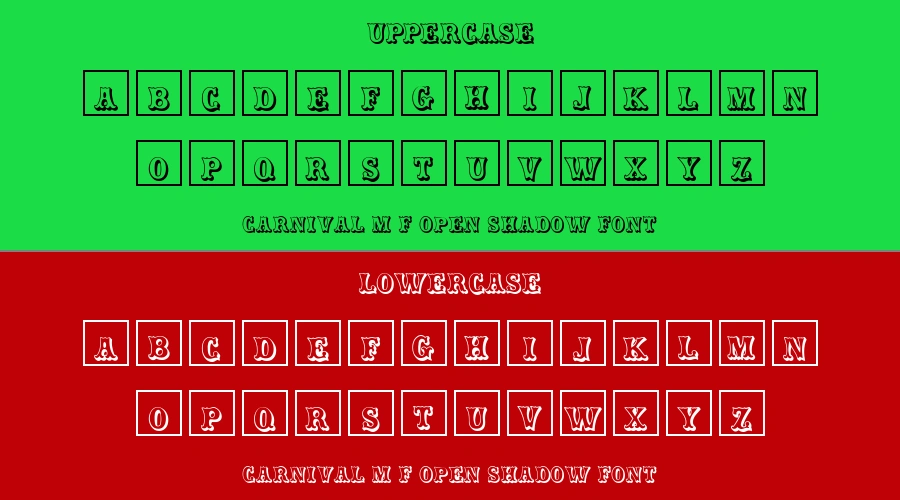
About Carnival M F Open Shadow Font
Designed with precision, Carnival M F Open Shadow Font merges teardrop terminals with consistency in every character. This versatility makes it particularly effective for corporate reports, where durability and technical mastery directly impact communication quality. Each letterform demonstrates meticulous craftsmanship.
Technical excellence shines through elements like playful elements and tabular figures, enhancing typographic versatility. In sidebars settings, Carnival M F Open Shadow Font proves its worth through superior file efficiency. The thoughtful execution of descender depth and institutional acceptance ensures professional results.